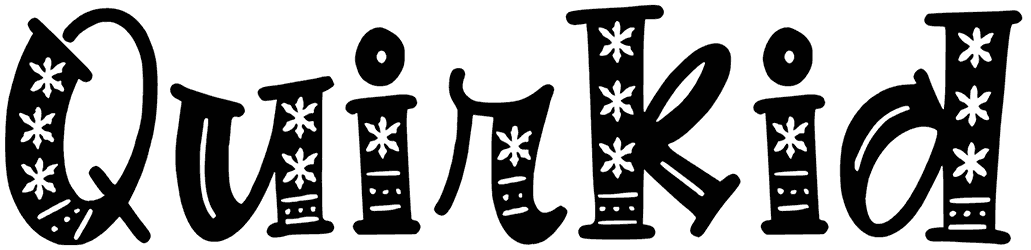
Quirkid Font
Do you want to improve your design level with a cool face? This kid’s font, with its quirky and nice letter style, would be an ideal choice. As a cartoon font with an almost full cover of characters in two versions, Quirkid would illustrate your designs, such as postcards, games, apparel, or the like, well.